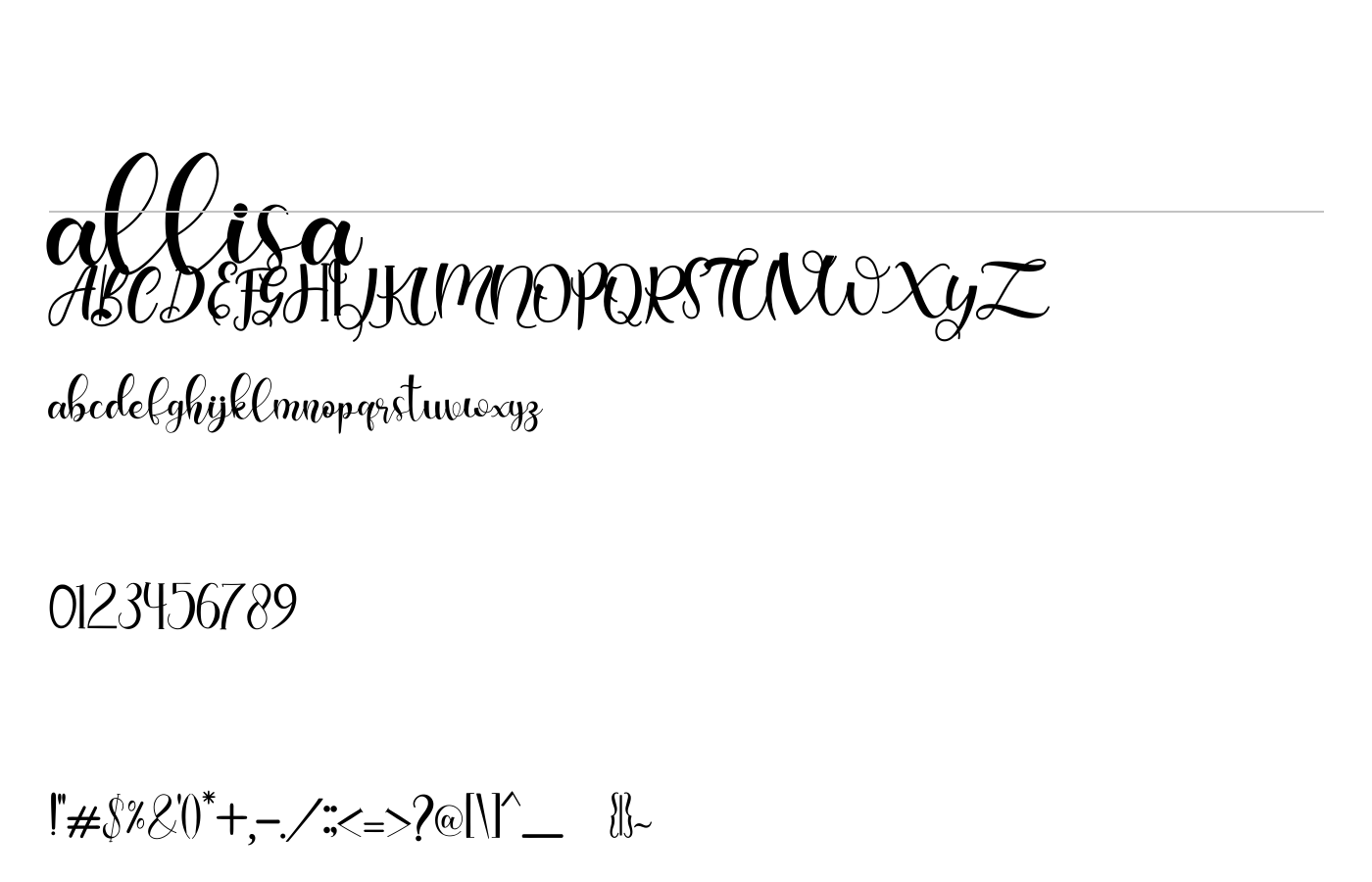
Allisa is a stylish script font that combines elegant, flowing strokes with a casual handwritten feel, making it both graceful and approachable. Its delicate curves and tall, slender letterforms with playful loops create a charming, decorative look ideal for invitations, branding, and creative projects seeking a touch of sophistication and warmth. This font works best in headlines or highlights where its unique personality can truly shine.
allisa Font
About allisa Font